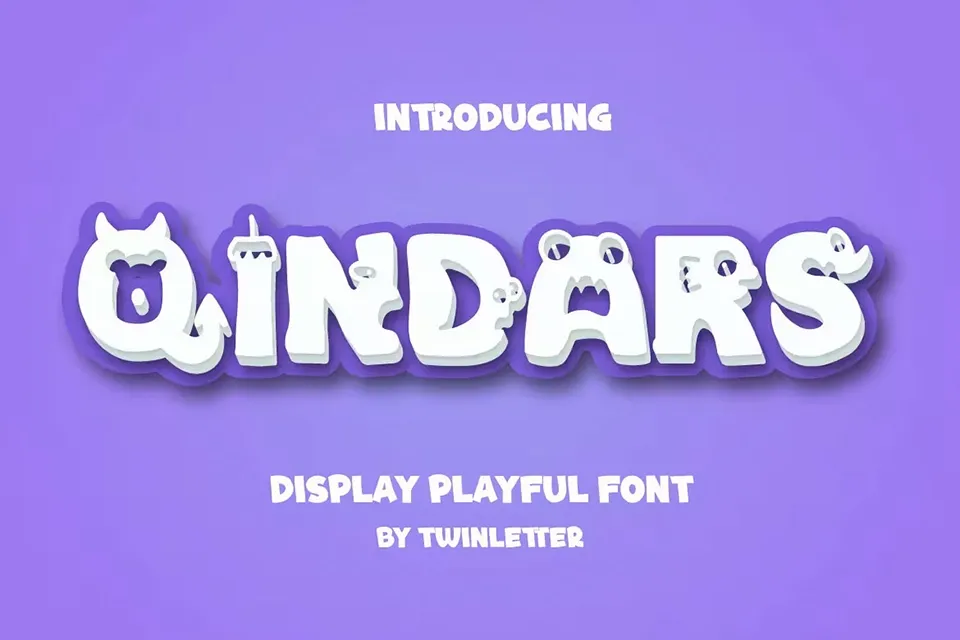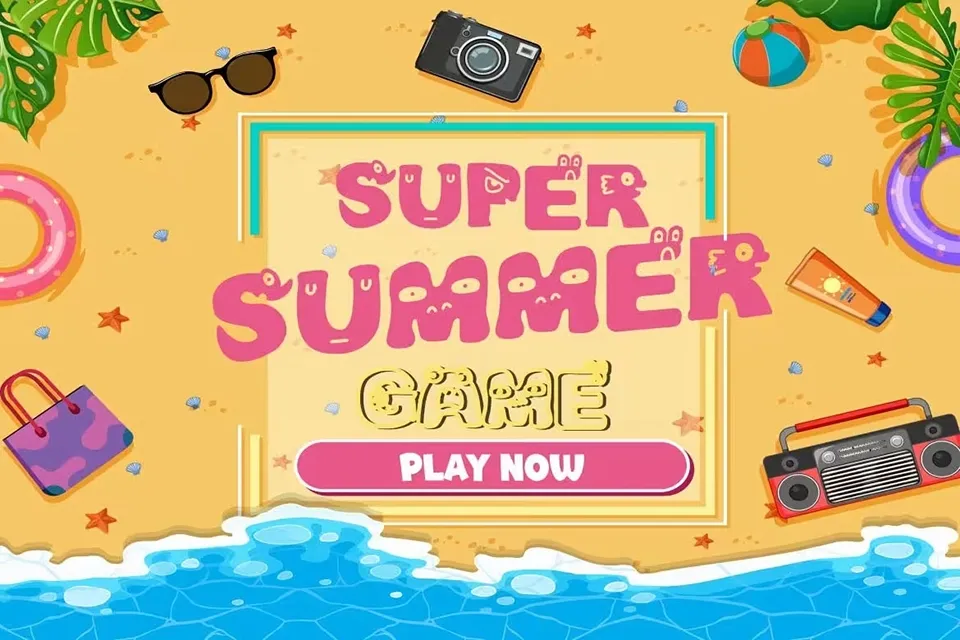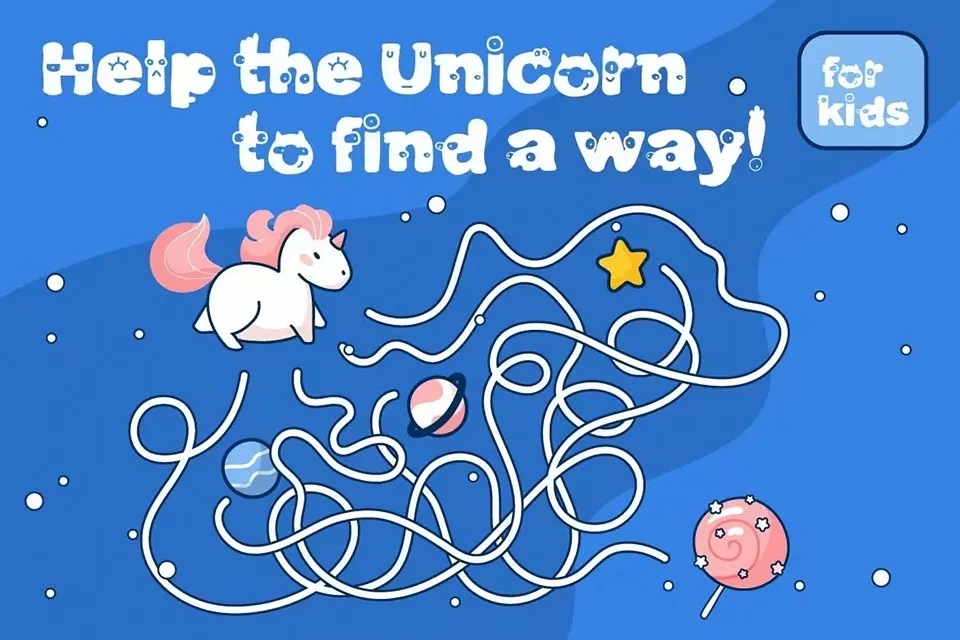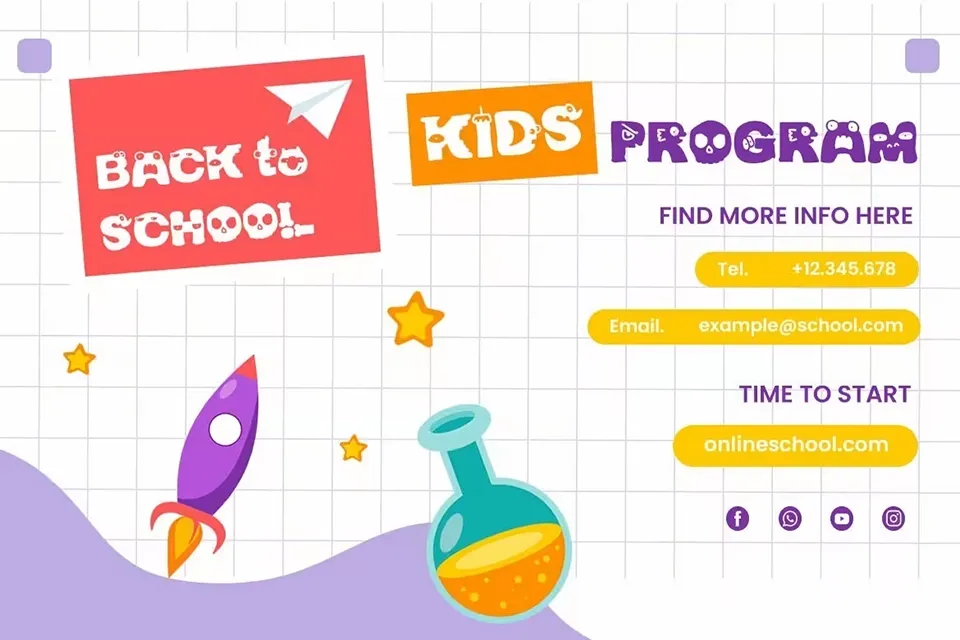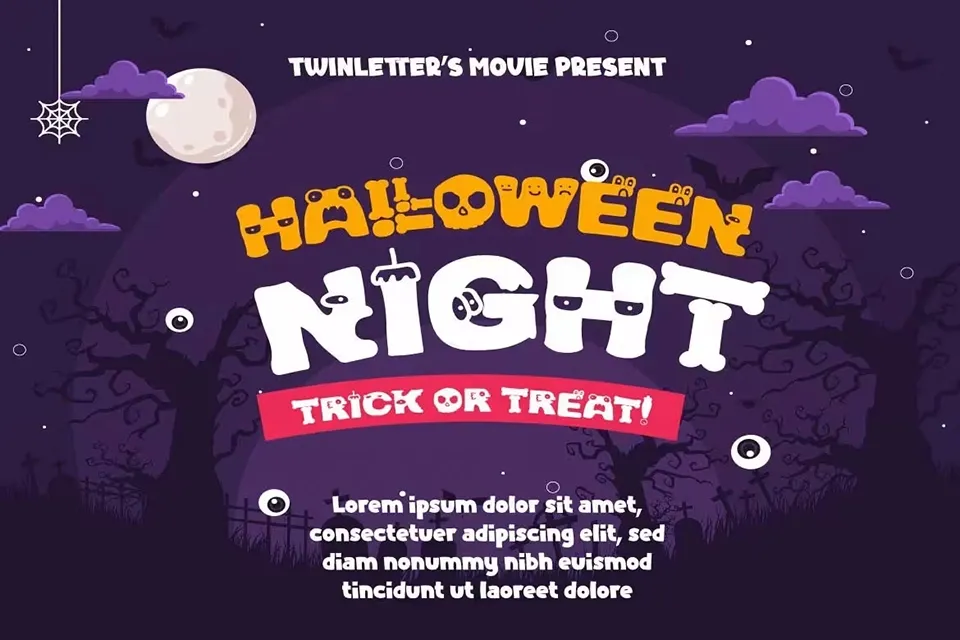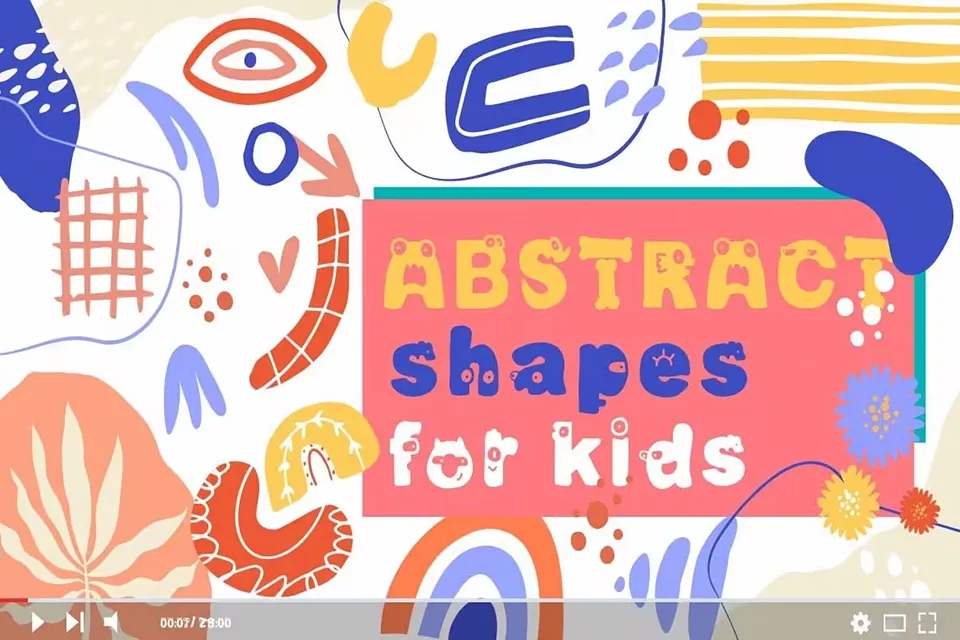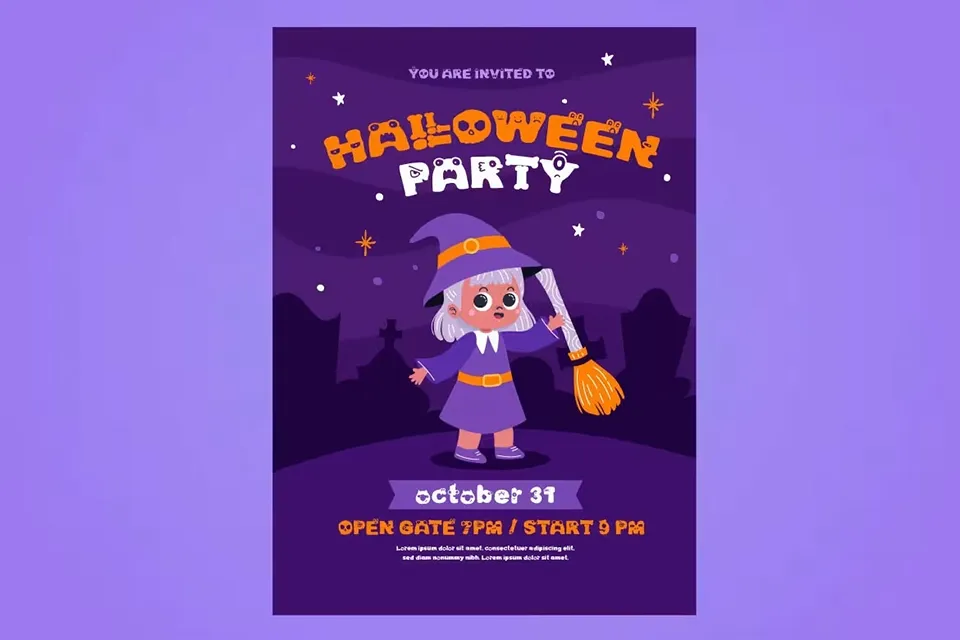
Qindars Font
Qindars Font, designed by Twinletter, is a display playful typeface bursting with character. Each letter is crafted with thick, rounded shapes and incorporates whimsical monster-like features such as eyes, horns, and funny mouths. This gives the font a uniquely fun and imaginative appearance. Its bold, friendly style is perfect for capturing attention in children’s books, game titles, party invitations, logos for kid-centric brands, and any creative project seeking a dose of lighthearted charm and distinctive personality. Qindars brings a memorable and engaging look to headlines and displays.